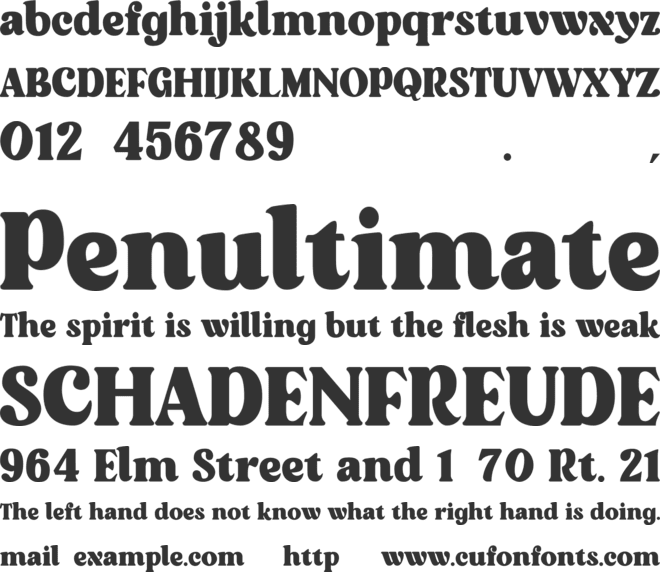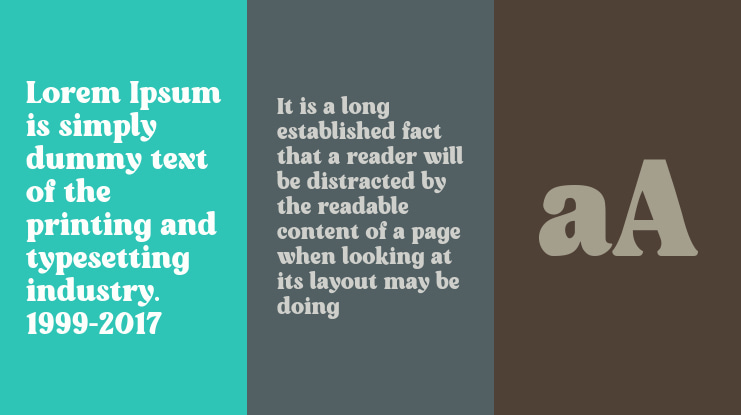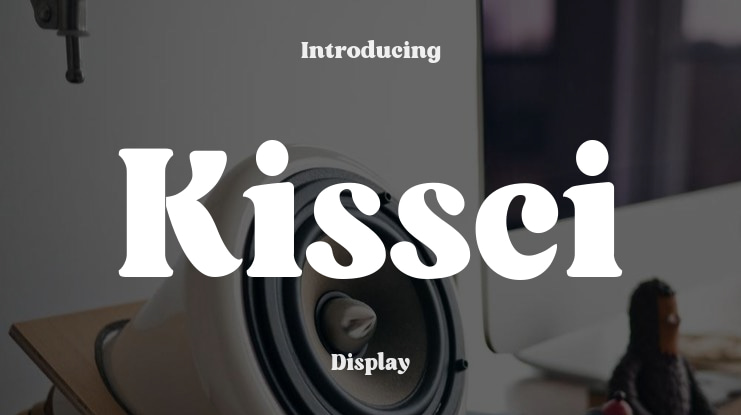
Kissci Font
Kissci Display Font - This font would be perfect for photography, watermarks, social media posts, advertisements, logos & branding, invitations, product design, labels, stationery, product packaging, special events, and other projects. This font is PUA encoded which means you can access all glyphs with ease!
Kissci font preview
Kissci font